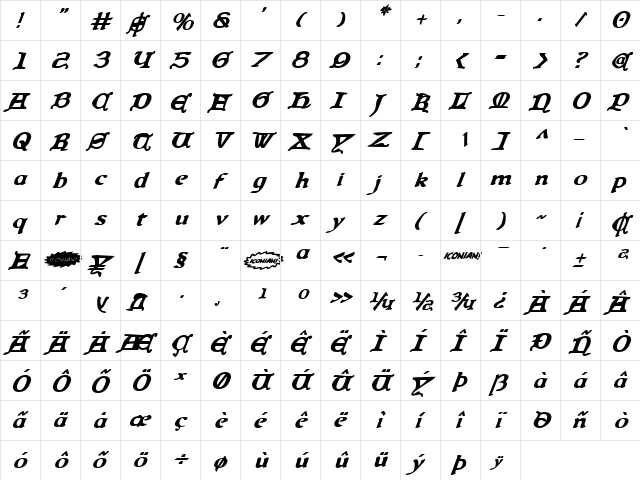
Queen & Country Bold Italic Font Preview
Design Context for Queen & Country Bold Italic Typeface
Queen & Country Bold Italic is a composed and adaptable typeface that performs quietly and consistently across a wide range of design contexts. The dynamic lean of this cut emphasises speed and emphasis in any layout. The heavy weight commands attention and anchors typographic hierarchies.